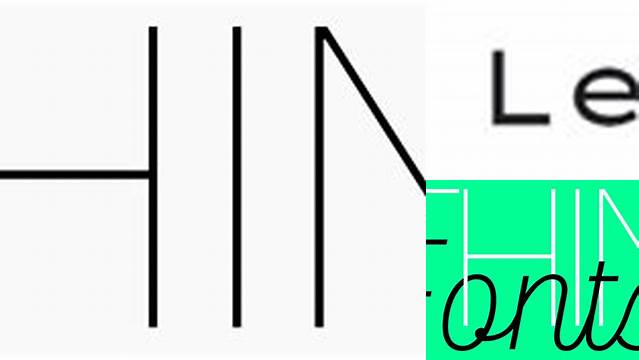
Best Wide & Thin Fonts: A Designer's Guide
Hey guys! Ever found yourself in a design pickle, needing that perfect font that's both bold and elegant, wide yet thin? It's a common struggle! Choosing the right font can make or break your design, whether it's for a sleek website, a captivating poster, or even just spicing up your social media game. We're diving deep into the world of wide and thin fonts today, exploring the best options, how to use them effectively, and everything in between. Think of this as your ultimate guide to mastering these typography titans. So, buckle up, let's get font-tastic!
1. Understanding Wide Fonts
Let's kick things off by getting a solid grasp on wide fonts. What exactly are they, and why might you want to use them? Wide fonts, sometimes called expanded or extended fonts, are characterized by their wider letterforms. This gives them a broader footprint on the page, making them feel impactful and attention-grabbing. Think of them as the font equivalent of a confident, booming voice. They're fantastic for headlines, posters, and any situation where you need to make a statement. But like any powerful tool, they need to be wielded with care. Overusing a wide font can quickly lead to visual clutter and overwhelm your design. The key is balance. Use them strategically, pairing them with thinner or narrower fonts for contrast and readability. Imagine a website headline screaming for attention, balanced by body text that's easy on the eyes – that's the magic we're aiming for. We will explore some examples, best use-cases, and tips for using wide fonts effectively in your designs.
2. Exploring Thin Fonts
Now, let's flip the script and delve into the world of thin fonts. In contrast to their wide cousins, thin fonts (also known as light or hairline fonts) are all about subtlety and elegance. They have a delicate, almost airy feel, adding a touch of sophistication to any design. Think of them as the font equivalent of a whispered secret – intriguing and refined. Thin fonts are perfect for creating a sense of minimalism, luxury, or modernity. They work beautifully in logos, invitations, and situations where you want to convey a sense of understated chic. However, they can be tricky to use, especially in large blocks of text. Readability can be an issue if the font is too thin, or if the contrast with the background is insufficient. Like wide fonts, the key to success lies in balance and careful consideration of context. You will find the best practices for using thin fonts to achieve a polished and professional look, without sacrificing readability.
3. Key Differences Between Wide and Thin Fonts
Alright, let's break it down and really nail the key differences between wide and thin fonts. We've touched on some of this already, but it's worth diving deeper to truly understand their unique characteristics. The most obvious difference, of course, is their width. Wide fonts have expanded letterforms, taking up more horizontal space, while thin fonts have narrow strokes, creating a lighter, more delicate appearance. This difference in width impacts their overall feel and the message they convey. Wide fonts tend to feel bold, impactful, and attention-grabbing, perfect for headlines and statements. Thin fonts, on the other hand, evoke feelings of elegance, sophistication, and minimalism, making them ideal for logos and refined designs. But the differences don't stop at aesthetics. Readability is also a crucial factor. Wide fonts can sometimes feel overwhelming if overused, while thin fonts can become difficult to read if they're too thin or used in small sizes. Understanding these nuances is crucial for making informed font choices that will elevate your designs. We will also see how these differences influence their application in various design projects.
4. Best Wide Fonts for Headlines
Headlines are your chance to grab attention and make a statement, and the right wide font can be your secret weapon. But with so many options out there, how do you choose the best one? The key is to consider the overall tone and message you want to convey. Are you aiming for bold and impactful? Or something a bit more modern and sophisticated? For a strong, attention-grabbing headline, fonts like Impact, Bebas Neue, or Montserrat ExtraBold are excellent choices. These fonts have a commanding presence that will instantly draw the eye. If you're looking for something with a touch more elegance, consider a wide font like Oswald or Roboto Condensed. These options offer a balance of width and readability, making them perfect for headlines that need to be both impactful and clear. Remember to consider the context of your design as well. A wide font that works beautifully on a poster might feel overwhelming on a website. It's all about finding the right balance and using your fonts strategically. I will share some specific examples of wide fonts that shine in headline applications, along with tips for pairing them with complementary body fonts.
5. Top Thin Fonts for Body Text
While thin fonts might not be the first choice for headlines, they can be absolutely stunning for body text, if used correctly. The key is readability. A thin font that's too light can become a real eyesore, especially in large blocks of text. So, what are the best options for achieving that elegant, readable body text? Fonts like Lato Light, Open Sans Light, and Roboto Thin are popular choices for a reason. They offer a delicate, modern feel without sacrificing legibility. These fonts have just enough weight to remain clear and comfortable to read, even at smaller sizes. Another great option is a slightly thicker thin font, like a regular weight of a classic typeface such as Helvetica or Arial. These options provide a bit more visual substance, making them a safe bet for longer passages of text. Remember, contrast is your friend! Pair a thin font for body text with a bolder headline font to create a clear visual hierarchy. We'll explore specific examples and provide best practices for using thin fonts effectively in body text to enhance readability and overall design appeal.
6. Combining Wide and Thin Fonts Effectively
This is where the magic happens! Mastering the art of combining wide and thin fonts is like learning a secret design language. When done right, it can create visual harmony, hierarchy, and a touch of design brilliance. The most common approach is to use a wide font for headlines and a thin font for body text. This creates a clear visual contrast, drawing the reader's eye to the headline while ensuring the body text remains readable. But there are other ways to play with this combination. You could use a thin font for subheadings and a wide font for callouts or emphasis. Or, you could even use a wide font for a logo and a thin font for the accompanying tagline. The possibilities are endless! The key is to experiment and find combinations that feel balanced and visually appealing. Think about the message you want to convey and choose fonts that complement each other in terms of style and tone. We will delve into specific font pairings and provide practical tips for achieving visual balance and harmony when combining wide and thin fonts.
7. Wide Fonts for Logo Design
A logo is the face of your brand, and the font you choose plays a crucial role in shaping that identity. Wide fonts can be a fantastic choice for logos that need to project strength, confidence, and impact. Think of brands that want to make a bold statement – a wide font can be the perfect way to do it. But as with any design choice, it's crucial to consider your target audience and the overall brand message. A wide font might be perfect for a sports brand or a tech company, but it might feel out of place for a luxury spa or a children's clothing store. When choosing a wide font for a logo, think about its legibility and versatility. Will it look good at different sizes? Will it work well on both print and digital platforms? It's also important to consider the overall design of the logo. A wide font can be incredibly impactful, but it needs to be balanced with other design elements to create a cohesive and memorable logo. I will share examples of successful logos that utilize wide fonts effectively, along with key considerations for incorporating them into your brand identity.
8. Thin Fonts for Minimalist Designs
Minimalism is all about stripping things back to their essence, and thin fonts are the perfect typography tool for achieving this aesthetic. Their delicate, understated nature perfectly complements the clean lines and open space that define minimalist design. A thin font can add a touch of sophistication and elegance without overwhelming the overall design. Think of a minimalist website with a simple logo and plenty of white space, using a thin font for both headlines and body text. The result is a clean, modern, and visually appealing design. However, it's crucial to use thin fonts carefully in minimalist designs. Readability is paramount, so choose a font that's legible even at small sizes. Also, consider the contrast between the font and the background. A thin font can easily get lost on a light background, so you might need to use a slightly darker shade or increase the font size. We will analyze how thin fonts contribute to the clean and sophisticated aesthetic of minimalist designs, providing practical tips for optimal usage.
9. Wide Fonts in Poster Design
Posters are all about grabbing attention from a distance, and wide fonts are naturally suited to this task. Their bold, impactful presence ensures that your message will be seen, even in a crowded environment. When choosing a wide font for a poster, think about the overall message and tone. A wide, sans-serif font can convey a sense of modernity and energy, while a wide, serif font can add a touch of classic elegance. The size of the poster will also influence your font choice. A larger poster can handle a bolder, more decorative wide font, while a smaller poster might require a more restrained option. Consider the hierarchy of information on your poster. Use the wide font for the most important elements, such as the headline or the event name, and use smaller, thinner fonts for supporting details. This will help to create a clear visual hierarchy and guide the viewer's eye. I will showcase poster designs that effectively utilize wide fonts to create impactful visuals, offering insights into font selection and layout strategies.
10. Thin Fonts in Wedding Invitations
Wedding invitations are all about elegance and sophistication, and thin fonts can be a beautiful choice for conveying this sentiment. Their delicate, refined nature adds a touch of romance and grace, perfectly setting the tone for a special occasion. When choosing a thin font for wedding invitations, consider the overall style of the wedding. A thin, script font can be perfect for a formal, traditional wedding, while a thin, sans-serif font can be a great choice for a modern, minimalist celebration. Legibility is key, so be sure to choose a thin font that's easy to read, even at smaller sizes. Consider the paper stock as well. A heavier paper stock can handle a thinner font better than a flimsy one. Experiment with different font pairings to create a unique and visually appealing invitation. A thin, elegant font for the main text can be beautifully complemented by a slightly bolder font for the names or the date. We'll explore how thin fonts enhance the elegance of wedding invitations, providing examples of stylish font combinations and design considerations.
11. Legibility Considerations for Wide Fonts
Alright, let's talk about legibility – a crucial factor when working with wide fonts. While they're fantastic for grabbing attention, they can quickly become a headache if they're not readable. Overusing wide fonts or using them in small sizes can lead to eye strain and make your design feel cluttered. One of the biggest legibility challenges with wide fonts is letter spacing. The wider letterforms can sometimes feel cramped if the spacing is too tight. Make sure to adjust the tracking and kerning to create adequate space between letters and words. Another important factor is the choice of font itself. Some wide fonts are inherently more legible than others. Opt for fonts with clear, well-defined letterforms, especially for body text. Color and contrast also play a significant role in legibility. A wide font on a busy background can be difficult to read. Always ensure there's sufficient contrast between the font and the background to make your text stand out. I'll provide practical tips and guidelines for ensuring optimal legibility when using wide fonts in various design contexts.
12. Readability Challenges with Thin Fonts
Now, let's tackle the readability challenges that often come with thin fonts. As we've mentioned, thin fonts are all about elegance, but that elegance can easily be undermined if your text becomes difficult to read. The biggest challenge is the thinness of the strokes themselves. If the strokes are too thin, they can become almost invisible, especially at smaller sizes or on screens with lower resolutions. To combat this, choose your thin fonts carefully. Opt for fonts that have a slightly thicker weight or a more robust letterform. Consider the background color. A thin font on a light background can be a recipe for disaster. Use a darker background or increase the font size to improve readability. Line height and letter spacing are also crucial. Adequate line height will give the text room to breathe, while proper letter spacing will prevent the letters from running together. I'll offer solutions for overcoming readability issues associated with thin fonts, including font selection, size adjustments, and contrast considerations.
13. Wide vs. Thin Fonts in Web Design
The digital landscape presents unique challenges and opportunities when it comes to using wide and thin fonts. On the web, readability is king, so choosing the right font is crucial for creating a positive user experience. Wide fonts can be fantastic for headlines and calls to action, drawing the user's eye to important elements on the page. However, overusing them can make your website feel cluttered and overwhelming. Thin fonts, on the other hand, can add a touch of sophistication and modernity to your website. They're great for body text and navigation menus, but they need to be used carefully to ensure readability. Responsive design is another key consideration. Your fonts need to look good on a variety of devices, from large desktop screens to small mobile phones. Test your font choices on different devices to ensure they remain legible and visually appealing. Font loading times can also impact user experience. Wide fonts, especially those with intricate designs, can sometimes take longer to load, potentially slowing down your website. I'll explore the best practices for using wide and thin fonts effectively in web design, focusing on readability, responsive design, and performance optimization.
14. Best Font Pairings: Wide and Thin
Font pairing is like a dance – you need two partners that complement each other perfectly. When it comes to wide and thin fonts, finding the right pairings can elevate your design from good to great. The most classic pairing is a wide font for headlines and a thin font for body text. This creates a clear visual hierarchy and ensures readability. For example, you could pair a wide font like Bebas Neue with a thin font like Lato Light. Or, you could combine a wide, serif font like Oswald with a thin, sans-serif font like Open Sans Light. But don't be afraid to experiment! There are endless possibilities when it comes to font pairings. You could try using a thin font for subheadings and a wide font for calls to action. Or, you could even use two different wide fonts or two different thin fonts to create a more nuanced visual hierarchy. The key is to find fonts that complement each other in terms of style, weight, and overall tone. I'll provide specific examples of successful font pairings involving wide and thin fonts, along with guidelines for creating harmonious and visually appealing combinations.
15. Wide Fonts for Branding Materials
Your branding materials are the face of your company, and the fonts you choose play a vital role in shaping your brand identity. Wide fonts can be a powerful choice for branding materials that need to project strength, confidence, and impact. Think of business cards, brochures, and website headers – a well-chosen wide font can make a lasting impression. But it's crucial to consider your target audience and the overall brand message. A wide font might be perfect for a tech startup or a fitness brand, but it might feel out of place for a luxury boutique or a wellness center. When choosing a wide font for branding materials, think about its versatility. Will it look good on different mediums, from print to digital? Will it work well at different sizes? It's also important to consider the overall design of your branding materials. A wide font should complement your logo, color palette, and other design elements to create a cohesive and memorable brand identity. I'll share insights into using wide fonts effectively in branding materials, including logo design, business cards, and website headers, emphasizing consistency and brand messaging.
16. Thin Fonts for Corporate Communications
In the world of corporate communications, clarity and professionalism are paramount. Thin fonts, when used strategically, can add a touch of elegance and sophistication to your reports, presentations, and other materials. However, readability is key. You need to choose thin fonts that are legible even in large blocks of text and on different screen sizes. A thin, sans-serif font like Open Sans Light or Lato Light can be a great choice for body text in corporate documents. These fonts offer a clean, modern feel without sacrificing readability. For headings and subheadings, you could use a slightly bolder font, or even a wide font, to create a clear visual hierarchy. Consistency is crucial in corporate communications. Choose a limited number of fonts and stick to them throughout all your materials. This will help to create a professional and cohesive brand image. I'll delve into the use of thin fonts in corporate communications, focusing on maintaining professionalism and clarity in reports, presentations, and internal documents.
17. Combining Wide and Thin in Mobile Apps
Mobile apps present a unique set of challenges and opportunities for typography. Screen real estate is limited, so it's crucial to choose fonts that are both legible and visually appealing. Wide and thin fonts can be combined effectively in mobile apps to create a clear visual hierarchy and enhance the user experience. A wide font can be used for headings and titles, drawing the user's eye to important information. A thin font can be used for body text and other supporting elements, creating a clean and modern look. Touch targets are another important consideration. Make sure your fonts are large enough and spaced appropriately to be easily tappable on a touchscreen. Legibility is paramount. Choose fonts that are clear and easy to read, even on small screens. Test your font choices on different devices to ensure they look good and are legible across a range of screen sizes. We'll discuss how to effectively combine wide and thin fonts in mobile app design, emphasizing readability, touch targets, and responsive typography.
18. Wide Fonts in E-commerce Websites
In the fast-paced world of e-commerce, grabbing the customer's attention is crucial. Wide fonts can be a powerful tool for achieving this, drawing the eye to key product information, calls to action, and special offers. Use wide fonts strategically for headlines, product titles, and promotional banners. This will help to create a sense of urgency and excitement. However, be careful not to overdo it. Too many wide fonts can make your website feel cluttered and overwhelming. Balance your wide fonts with thinner, more readable fonts for body text and product descriptions. This will ensure that your website is both visually appealing and easy to navigate. Mobile optimization is key. Make sure your fonts look good and are legible on mobile devices. A responsive design that adapts to different screen sizes is essential for a positive user experience. I'll explore the strategic use of wide fonts in e-commerce websites, focusing on highlighting product information, calls to action, and creating a visually engaging shopping experience.
19. Thin Fonts for Editorial Design
Editorial design, whether for magazines, books, or online articles, requires a delicate balance of aesthetics and readability. Thin fonts can be a beautiful choice for editorial design, adding a touch of elegance and sophistication to the page. However, they need to be used carefully to ensure that the text remains legible, especially in long articles or dense layouts. A thin, serif font can be a great choice for body text in editorial design. Fonts like Garamond Light or Caslon Light offer a classic, refined feel. For headings and subheadings, you could use a slightly bolder font, or even a wide font, to create visual hierarchy. White space is your friend. Use plenty of white space around your text to give it room to breathe and improve readability. Line height and letter spacing are also crucial. Adequate line height will make the text easier to scan, while proper letter spacing will prevent the letters from running together. We'll delve into the art of using thin fonts in editorial design, emphasizing readability, white space, and creating visually engaging layouts for magazines, books, and online articles.
20. Legal Considerations for Using Wide and Thin Fonts
Before you dive headfirst into using a specific wide or thin font in your design project, it's crucial to consider the legal aspects. Not all fonts are created equal, and their licensing agreements can vary significantly. Using a font without the proper license can lead to legal trouble, so it's always best to be informed. Most fonts are protected by copyright law, meaning you need permission from the font's creator or distributor to use it legally. This permission usually comes in the form of a license, which outlines the specific ways you can use the font. Some licenses are free, allowing you to use the font for personal and commercial projects without any cost. Others are commercial licenses, requiring you to pay a fee for the right to use the font in certain ways. Commercial licenses often have restrictions on how many users can access the font, or how many projects you can use it in. It's essential to read the license agreement carefully to understand your rights and obligations. I'll provide guidance on navigating the legal landscape of font usage, including understanding licensing agreements and avoiding copyright infringement when using wide and thin fonts.
21. The Psychology of Wide Fonts
Fonts aren't just visual elements; they also carry psychological weight. The font you choose can influence how your message is perceived, and wide fonts are no exception. They often convey a sense of strength, confidence, and impact. Think about a headline in a wide, bold font – it immediately grabs your attention and makes a statement. This makes wide fonts a great choice for brands that want to project authority, reliability, or energy. However, it's important to use them strategically. Overusing wide fonts can create a feeling of aggression or overwhelm, so it's crucial to balance them with other design elements and font choices. The context of your message also plays a role. A wide font that works well for a sports brand might not be the best choice for a wellness center. Consider your target audience and the overall tone you want to convey. I'll explore the psychological impact of wide fonts in design, discussing how they can convey strength, confidence, and impact, and how to use them effectively to communicate specific brand messages.
22. The Psychology of Thin Fonts
On the flip side, thin fonts evoke a completely different set of emotions and associations. They're often perceived as elegant, sophisticated, and modern. Think about a high-end fashion brand using a thin, delicate font in its logo – it instantly conveys a sense of luxury and exclusivity. Thin fonts can also create a feeling of lightness and airiness, making them a great choice for designs that aim for a minimalist or refined aesthetic. However, like wide fonts, they need to be used with care. Thin fonts can sometimes feel fragile or insubstantial, so it's important to ensure they're legible and that they fit the overall tone of your message. The context is key. A thin font that works beautifully for a wedding invitation might not be the best choice for a call to action button on a website. I'll discuss the psychological associations of thin fonts in design, exploring how they convey elegance, sophistication, and modernity, and how to use them appropriately to create specific emotional responses.
23. Wide Fonts for Social Media Graphics
Social media is a visual battlefield, and your graphics need to stand out in a sea of content. Wide fonts can be a powerful weapon in your social media arsenal, helping you grab attention and convey your message quickly and effectively. Think about using a wide, bold font for headlines, captions, or calls to action on your social media images and videos. This will help your content cut through the noise and make a strong impression. But remember, legibility is paramount. Social media users are often scrolling quickly, so your fonts need to be easy to read at a glance. Choose wide fonts that are clear and well-defined, and make sure there's enough contrast between the font and the background. Mobile optimization is also crucial. Social media is primarily consumed on mobile devices, so your fonts need to look good and be legible on small screens. I'll explore how to leverage wide fonts in social media graphics to grab attention and communicate effectively in a fast-paced digital environment, with a focus on legibility and mobile optimization.
24. Thin Fonts in Infographics
Infographics are all about presenting complex information in a clear and visually appealing way. Thin fonts, when used thoughtfully, can contribute to a clean and modern infographic design. They can be particularly effective for body text, labels, and annotations, providing a subtle and sophisticated counterpoint to bolder visual elements. However, readability is key. Infographics often contain a lot of text, so it's crucial to choose thin fonts that are legible at smaller sizes. Consider using a slightly thicker weight or a thin font with a generous x-height to improve readability. Visual hierarchy is also important. Use different font sizes and weights to guide the viewer's eye and highlight key information. A thin font can be used for body text, while a bolder font or a wide font can be used for headings and subheadings. I'll provide insights into using thin fonts effectively in infographics, balancing aesthetics and readability to create clear and visually engaging data visualizations.
25. Wide Fonts in Print Advertising
Print advertising, whether it's in magazines, newspapers, or posters, demands fonts that can command attention and convey a clear message. Wide fonts are a natural fit for this medium, offering the visual weight and impact needed to stand out in a crowded environment. They excel at headlines and key messages, ensuring that your ad grabs the reader's eye. However, it's crucial to consider the overall design and target audience. A wide font that aligns with a youthful, energetic brand may not suit a more sophisticated or conservative product. Legibility is also paramount, especially in smaller ads. Select wide fonts that retain their clarity even at reduced sizes and ensure ample contrast with the background. The choice of paper stock and printing techniques can also influence the effectiveness of a wide font. A glossy paper can enhance the impact of a bold font, while textured paper may soften it. I'll explore the use of wide fonts in print advertising, focusing on grabbing attention, conveying key messages, and adapting to different print mediums and target audiences.
26. Thin Fonts for Website Navigation
Website navigation is the backbone of user experience, and the fonts you choose play a crucial role in making it intuitive and efficient. Thin fonts, with their understated elegance, can be a great choice for website navigation menus, creating a clean and modern feel. However, legibility is paramount. Navigation menus need to be clear and easy to read at a glance, so it's crucial to select thin fonts that maintain their clarity even at smaller sizes. Consider the size and spacing of your navigation links. Make sure they're large enough to be easily clickable on both desktop and mobile devices. Contrast is also important. Ensure that your thin font has sufficient contrast with the background color to stand out and be easily visible. Test your navigation menu on different devices and browsers to ensure it looks good and functions correctly across all platforms. I'll discuss how to use thin fonts effectively for website navigation, focusing on readability, clickability, and ensuring a smooth user experience across different devices.
27. Trends in Wide and Thin Fonts
Like any area of design, typography is subject to trends. While classic fonts remain timeless, new styles and approaches emerge, influencing how designers use wide and thin fonts. Currently, there's a strong trend towards wide, bold fonts in headlines and branding, reflecting a desire for impactful and attention-grabbing visuals. These wide fonts often have a modern, geometric feel, aligning with a minimalist aesthetic. In contrast, thin fonts continue to be popular for body text and minimalist designs, conveying a sense of elegance and sophistication. However, there's also a growing trend towards slightly thicker thin fonts, addressing concerns about readability on screens. Variable fonts, which allow for fine-tuning of font weight and width, are also gaining traction, offering designers greater flexibility in their typographic choices. Keeping abreast of these trends can help you make informed font choices and create designs that feel current and relevant. I'll provide an overview of current trends in wide and thin fonts, including popular styles, emerging technologies like variable fonts, and how they reflect broader design trends.
28. The Future of Wide and Thin Fonts
The world of typography is constantly evolving, and the future of wide and thin fonts is likely to be shaped by technological advancements, changing design sensibilities, and the ever-increasing importance of digital accessibility. Variable fonts, which allow for seamless adjustments to font weight and width, are poised to play a significant role, giving designers unprecedented control over their typography. Artificial intelligence (AI) may also influence font design, potentially leading to the creation of personalized fonts tailored to individual preferences or specific brand identities. Accessibility will continue to be a key consideration, driving the development of wide and thin fonts that are legible and inclusive for all users. This includes optimizing fonts for screen readability, providing sufficient contrast, and ensuring compatibility with assistive technologies. I'll explore the potential future of wide and thin fonts, considering the impact of technology, evolving design trends, and the growing focus on accessibility and inclusivity in typography.
29. Choosing the Right Width: A Practical Guide
Navigating the world of wide and thin fonts can feel overwhelming, but with a few practical guidelines, you can confidently choose the right width for your design project. Start by considering your message and target audience. Do you want to convey strength and impact, or elegance and sophistication? Wide fonts are ideal for the former, while thin fonts are better suited for the latter. Think about the context of your design. A poster needs a wide, attention-grabbing font, while a corporate report might call for a thin, readable font. Legibility is paramount. Always prioritize fonts that are easy to read, especially for body text and navigation menus. Test your font choices on different devices and screen sizes to ensure they remain clear. Experiment with font pairings. Combining wide and thin fonts can create visual interest and hierarchy, but it's important to find pairings that are harmonious and balanced. I'll provide a practical guide to choosing the right width for your font, offering actionable tips for different design contexts and target audiences.
30. Mastering the Art of Typography with Wide and Thin Fonts
Typography is an art form, and mastering the use of wide and thin fonts is a key step towards becoming a skilled designer. By understanding the characteristics, strengths, and limitations of these font styles, you can create visually compelling and effective designs. Experiment with different font combinations, and don't be afraid to break the rules. However, always prioritize legibility and ensure that your font choices support your message and brand identity. Pay attention to detail. Small adjustments to letter spacing, line height, and font size can make a big difference in the overall impact of your design. Seek inspiration from other designers and projects, but develop your own unique style and approach. With practice and a keen eye for detail, you can master the art of typography and use wide and thin fonts to create stunning and impactful visuals. I'll offer concluding thoughts on mastering typography with wide and thin fonts, encouraging experimentation, attention to detail, and developing a unique design style.